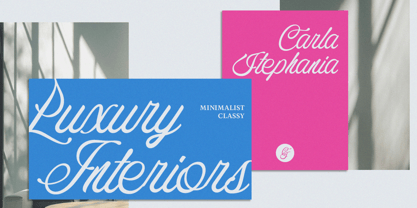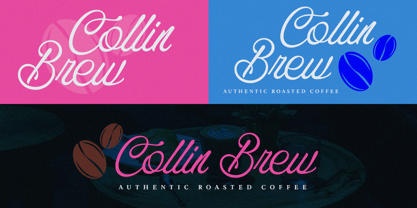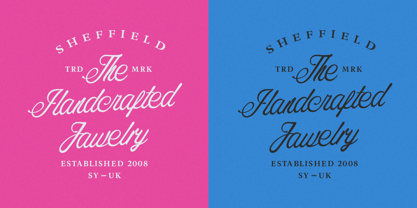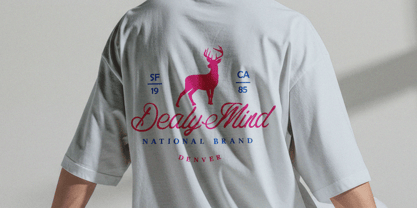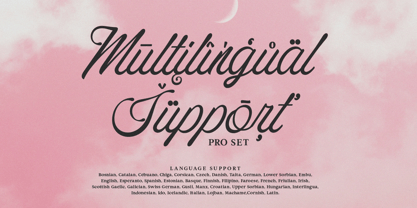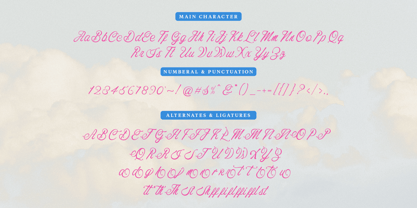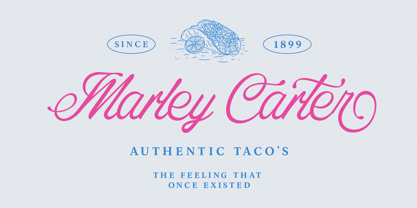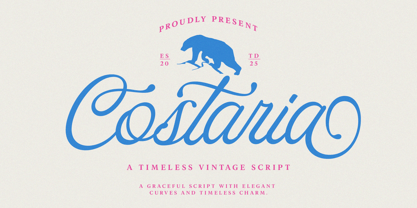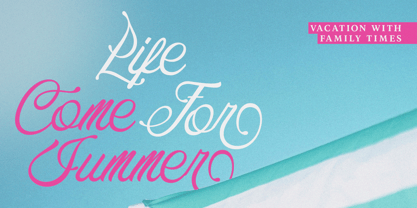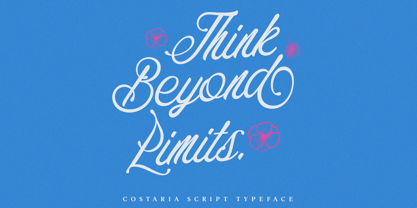
Costaria Script
The Costaria Script Font Family was designed by Rizki Andika and published by Letterfreshstudio. Costaria Script contains 1 styles. More about this family
Costaria is a sophisticated script display font that blends modern elegance with classic charm. Designed with precision and passion by Letterfreshstudio Studio, this typeface exudes luxury, fluidity, and timeless beauty—perfect for branding, packaging, editorials, invitations, and luxury projects. Its graceful letterforms flow smoothly, creating a refined and artistic feel with every stroke. Whether you're designing a logo, wedding stationery, or inspirational poster, Refinsted adds a touch of class and distinction that sets your work apart. Ideal for those seeking sophistication and flexibility in their typographic toolkit.
426 Unique Glyphs
Style Set
Ligatures
Uppercase & Lowercase Letters
Numbers, Punctuation & Symbols
Multilingual Support